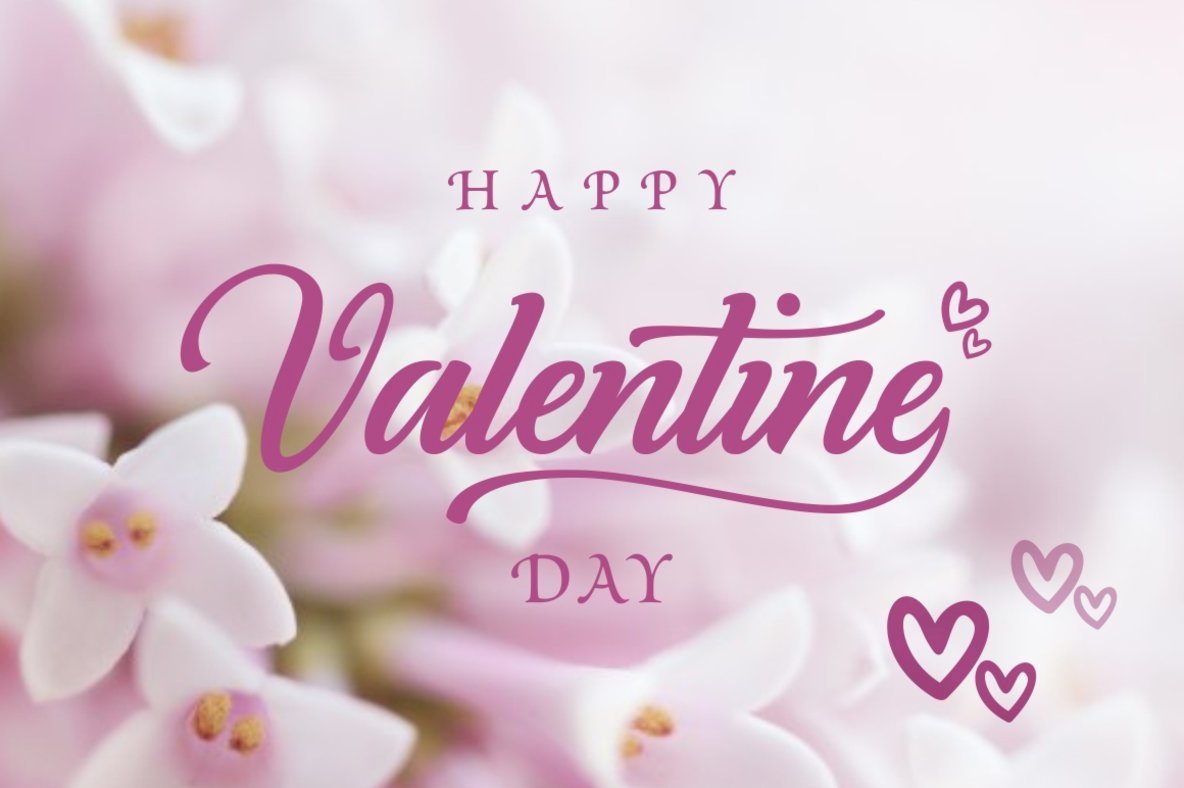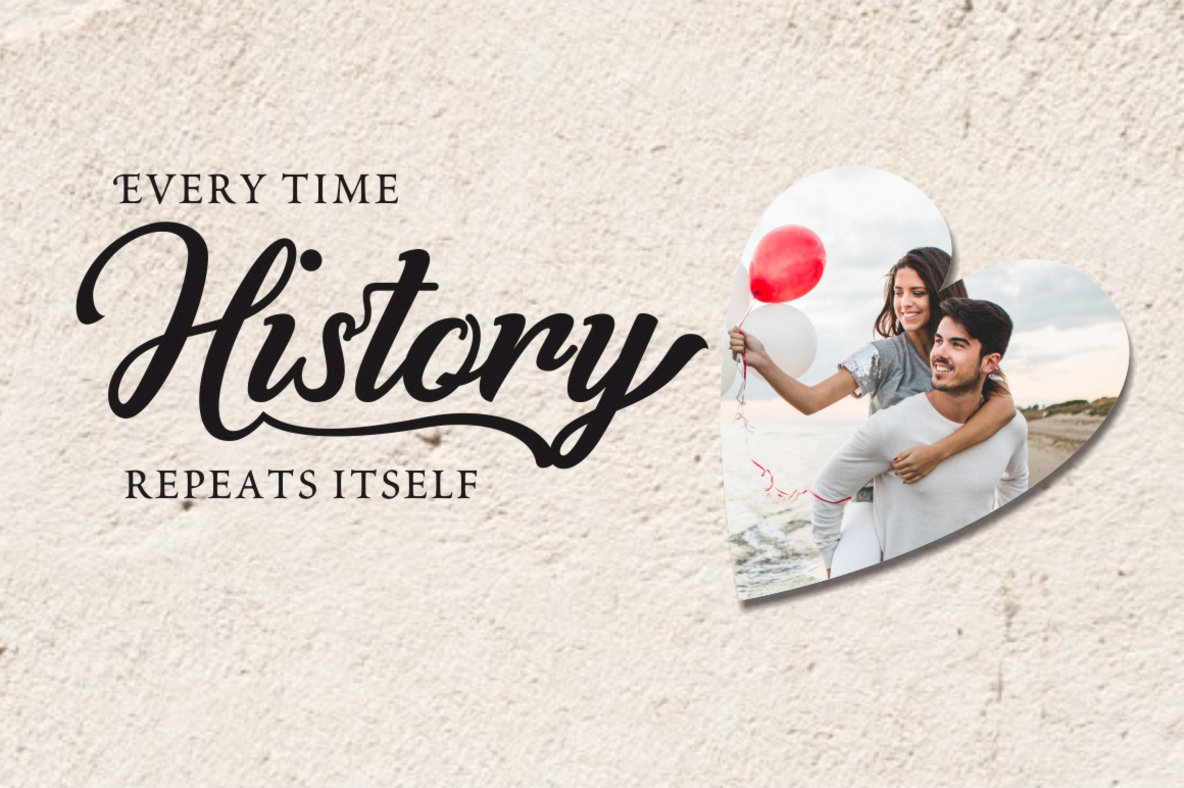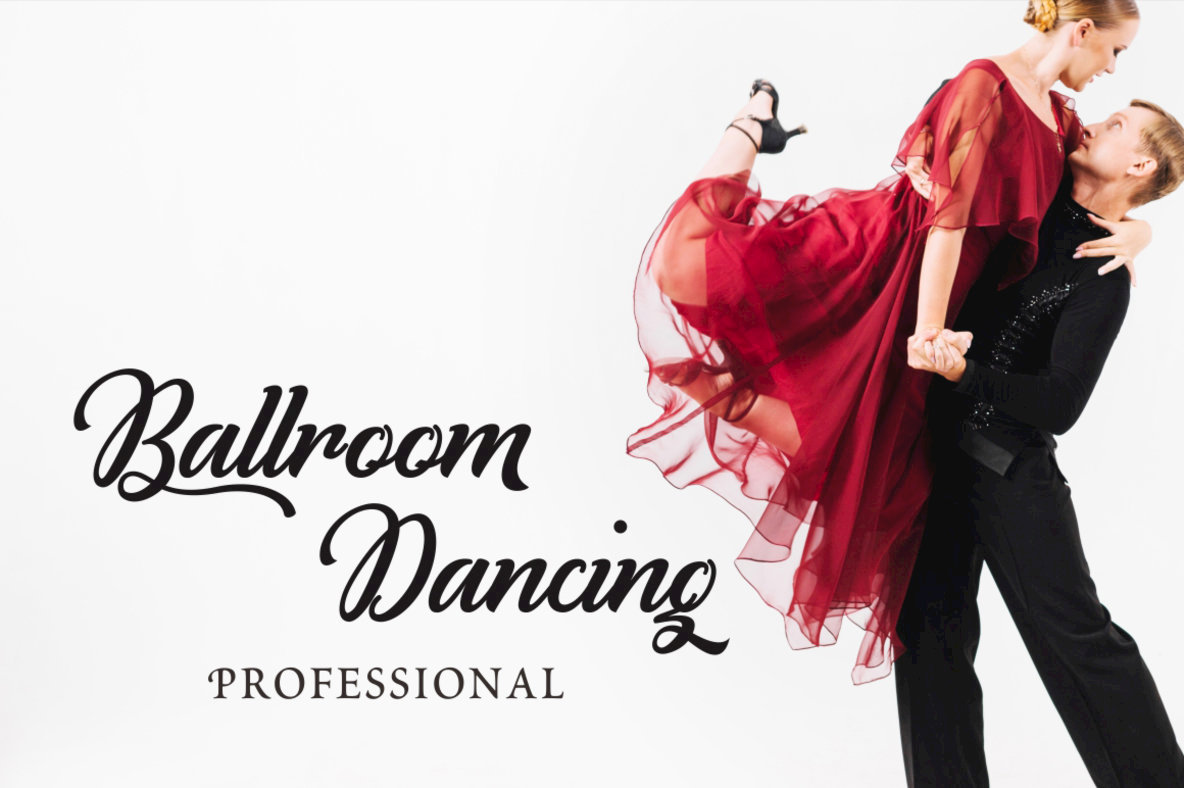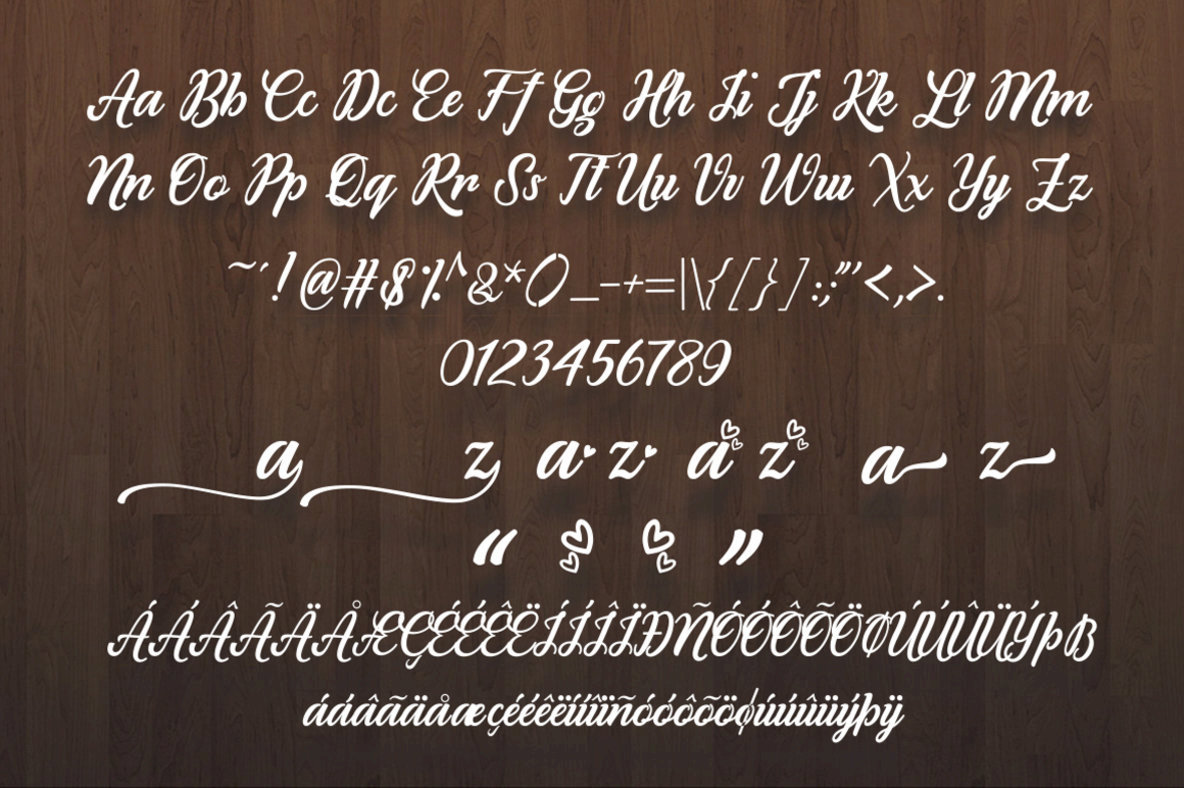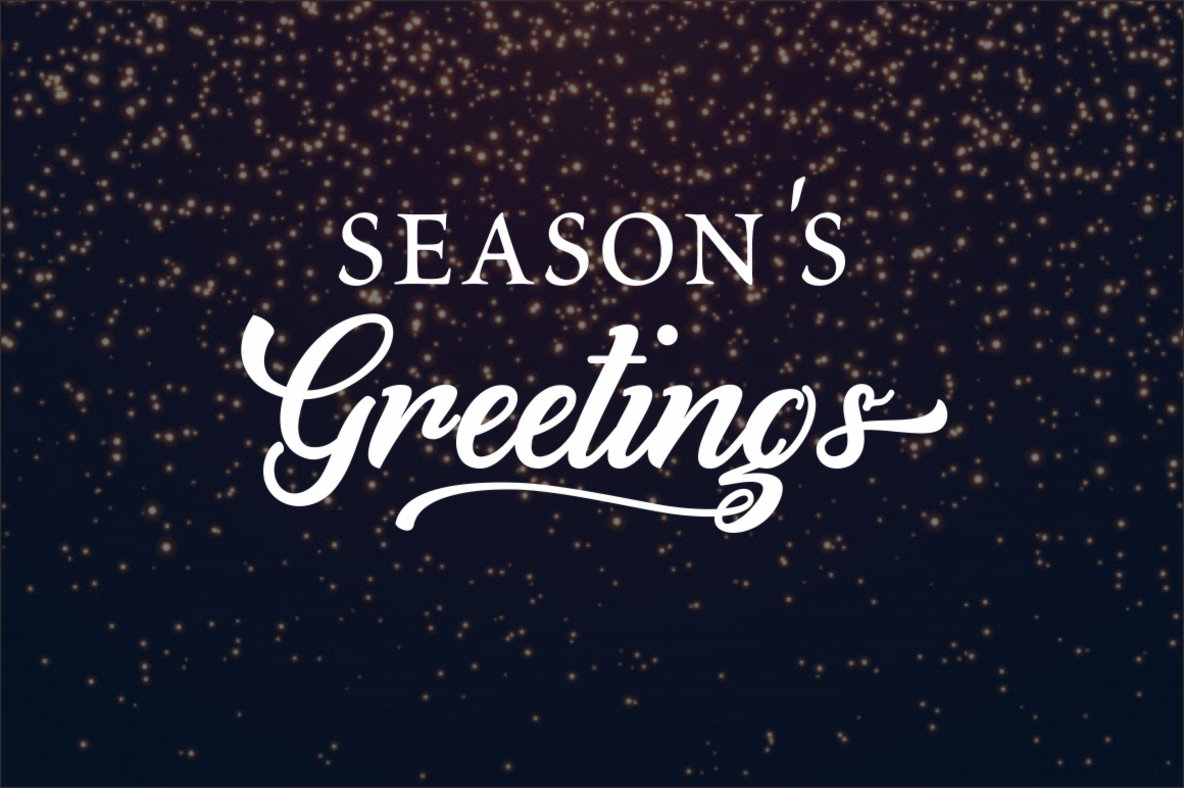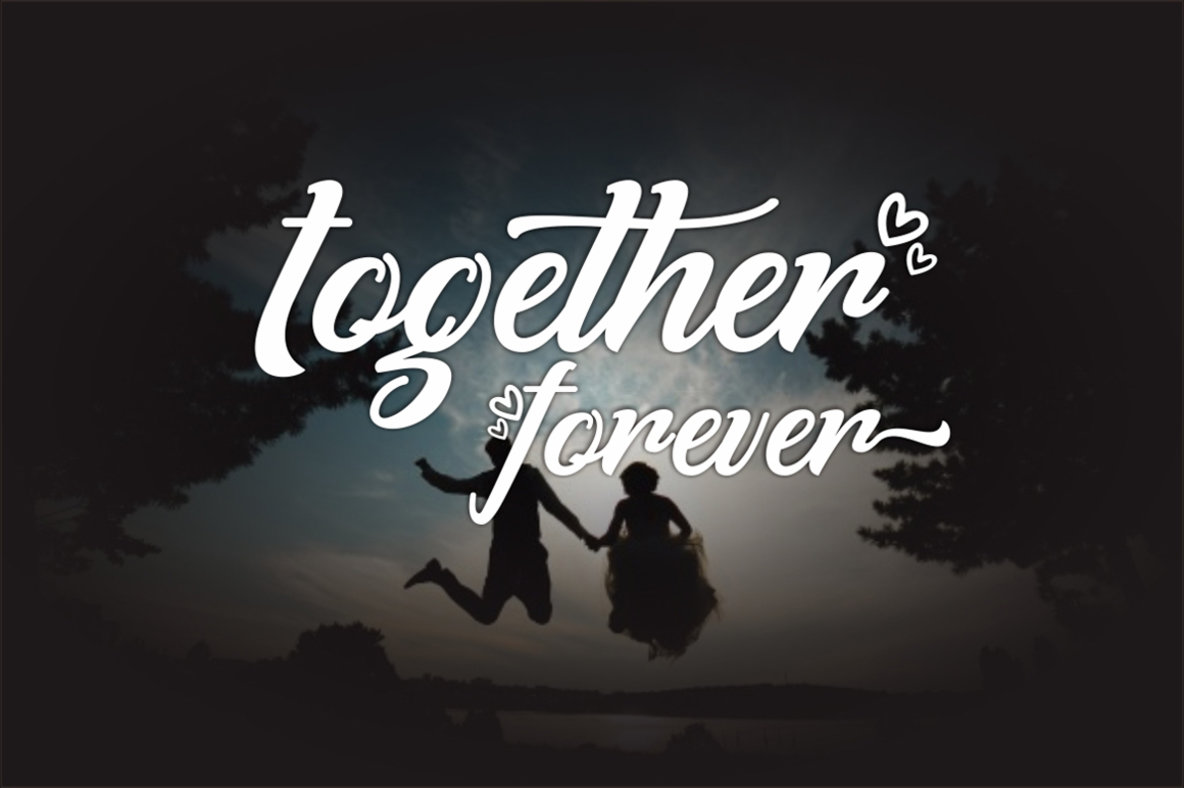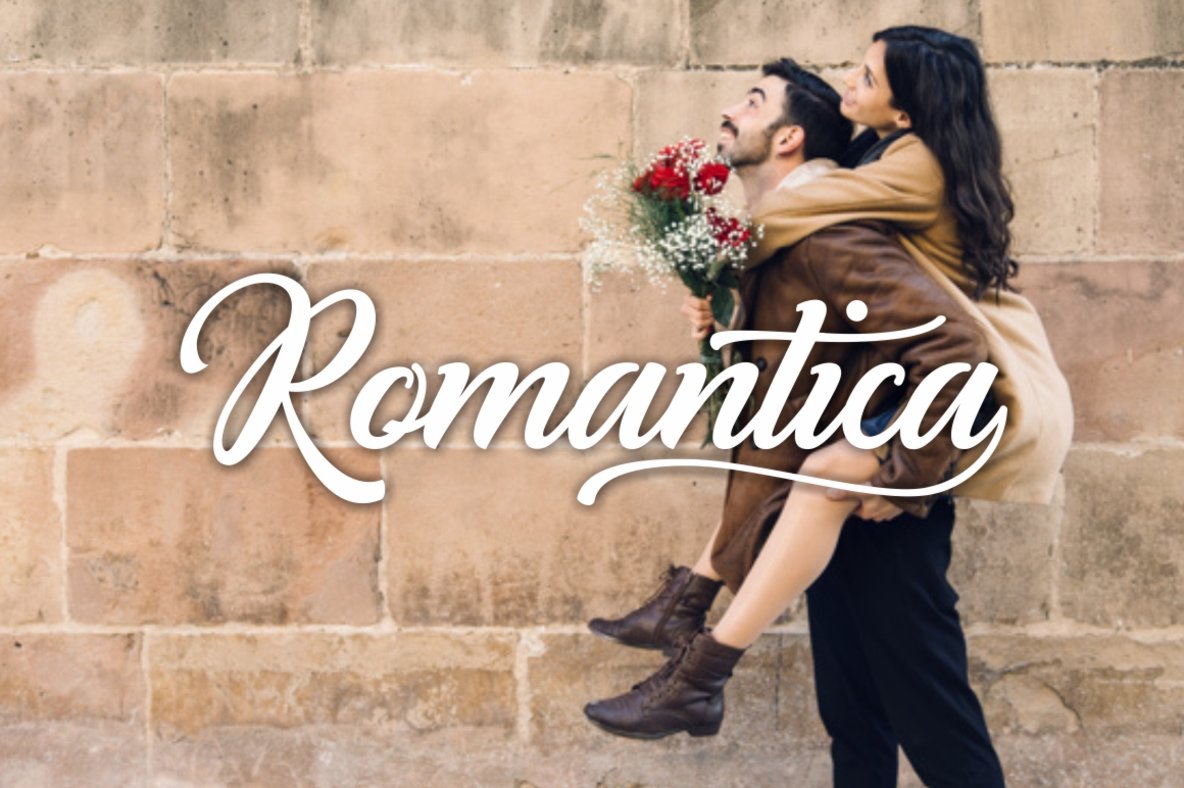
Romantina Font
Romantina Script
Delve into the world of Romantina, a calligraphy script font meticulously crafted in a modern style, perfect for adding a touch of elegance to your designs. This typeface's graceful lines and thoughtful curves make it an excellent choice for branding, packaging, t-shirts, and a range of other creative projects. Romantina is compatible with industry-standard software such as Adobe Photoshop, Illustrator, InDesign, CorelDraw, and Microsoft Office. It supports a wide array of European languages, making it a versatile choice for international designers. Whether you're designing a wedding invitation, crafting a logo, or creating a stylish t-shirt, Romantina offers the adaptability and aesthetic appeal needed for a variety of applications.Romantina: Script Font for Modern Elegance